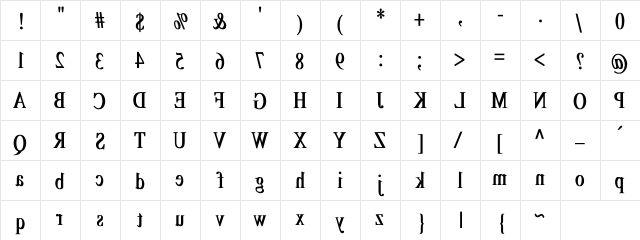
RSTimesMirror Cn bold Bold Font Preview
RSTimesMirror Cn bold Bold
RSTimesMirror Cn bold Bold Font Details
Design Context for RSTimesMirror Cn bold Typeface
RSTimesMirror Cn bold offers clean, dependable letterforms without strong stylistic allegiance, making it a practical choice for designers who need flexibility. The heavy weight commands attention and anchors typographic hierarchies.